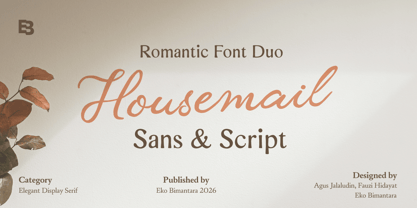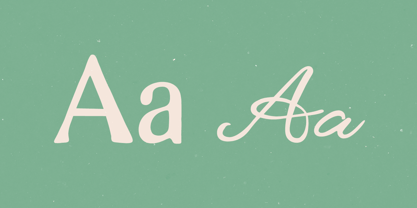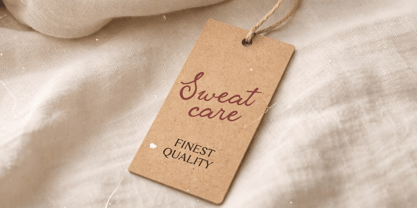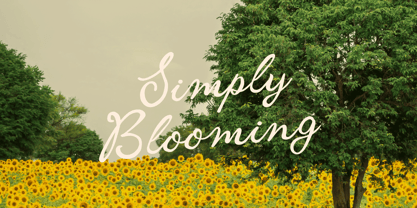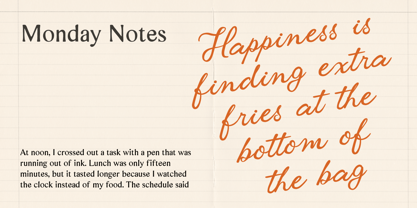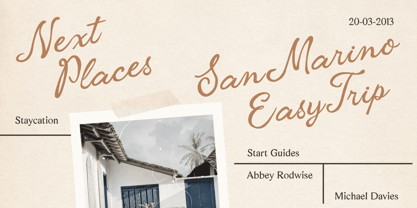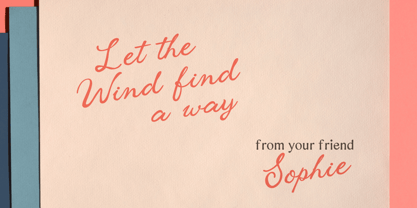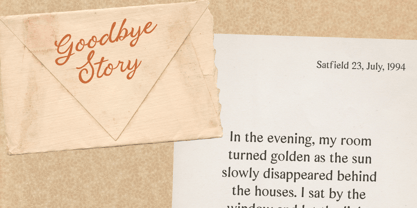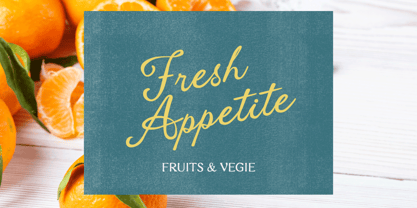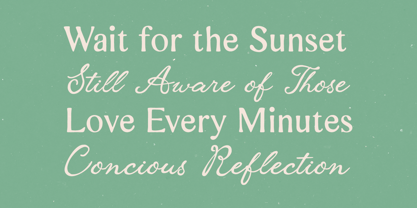
Housemail
by Eko Bimantara
The Housemail Font Family was designed by Eko Bimantara, Agus Jalaludin, Fauzi HIdayat and published by Eko Bimantara. Housemail contains 2 styles and family package options. More about this family
Housemail is a romantic script font blended with a rough handwritten sans font duo, creating a warm and personal feel with a touch of vintage charm. Its natural strokes and slightly imperfect texture give the impression of heartfelt letters and nostalgic notes, making it perfect for romantic and vintage-themed designs. Designed to be both expressive and readable, Housemail works beautifully for branding, websites, packaging, quotes, and creative projects that seek an emotional and human touch. This font brings warmth, intimacy, and timeless appeal to every composition.
Designers: Eko Bimantara, Agus Jalaludin, Fauzi HIdayat
Foundry: Eko Bimantara
Eko Bimantara is a type designer from Indonesia. Always has an intention to creating fonts that not only look great but also perform across a wide range of mediums and also across wide range of theme. The goal is to give designers the tools to make their projects that speaks a lot with various expression. Eko Bimantara’s fonts are featured in everything from corporate identities to street art posters, and have numerous ideas and concept ready to expand for fresh fonts for years further.